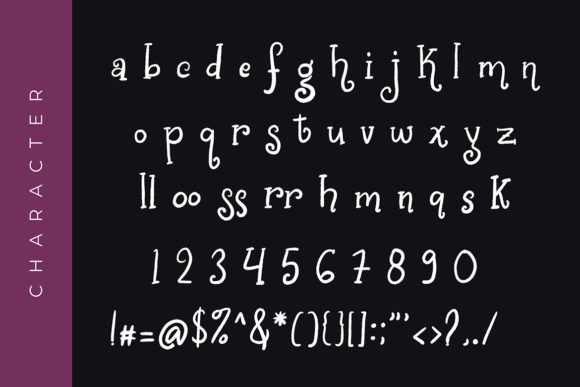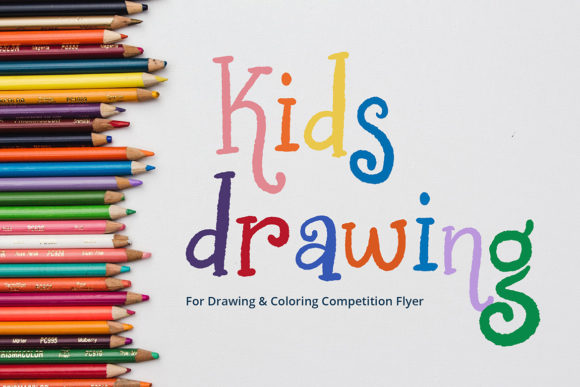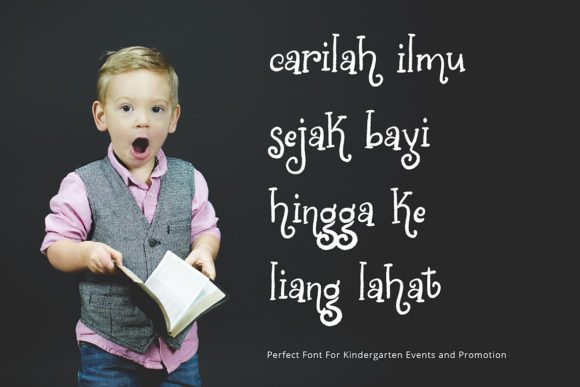
Introduction to Chalk World Font
Chalk World is an equally fun and elegant display font that’s perfect for adding a whimsical and playful feel to your next creative project.
Key Features of Chalk World Font
Why Choose Chalk World Font?
Chalk World Font offers exceptional quality and versatility, making it a valuable addition to your design toolkit. Whether you’re creating for personal projects or commercial use, Chalk World Font delivers professional results.